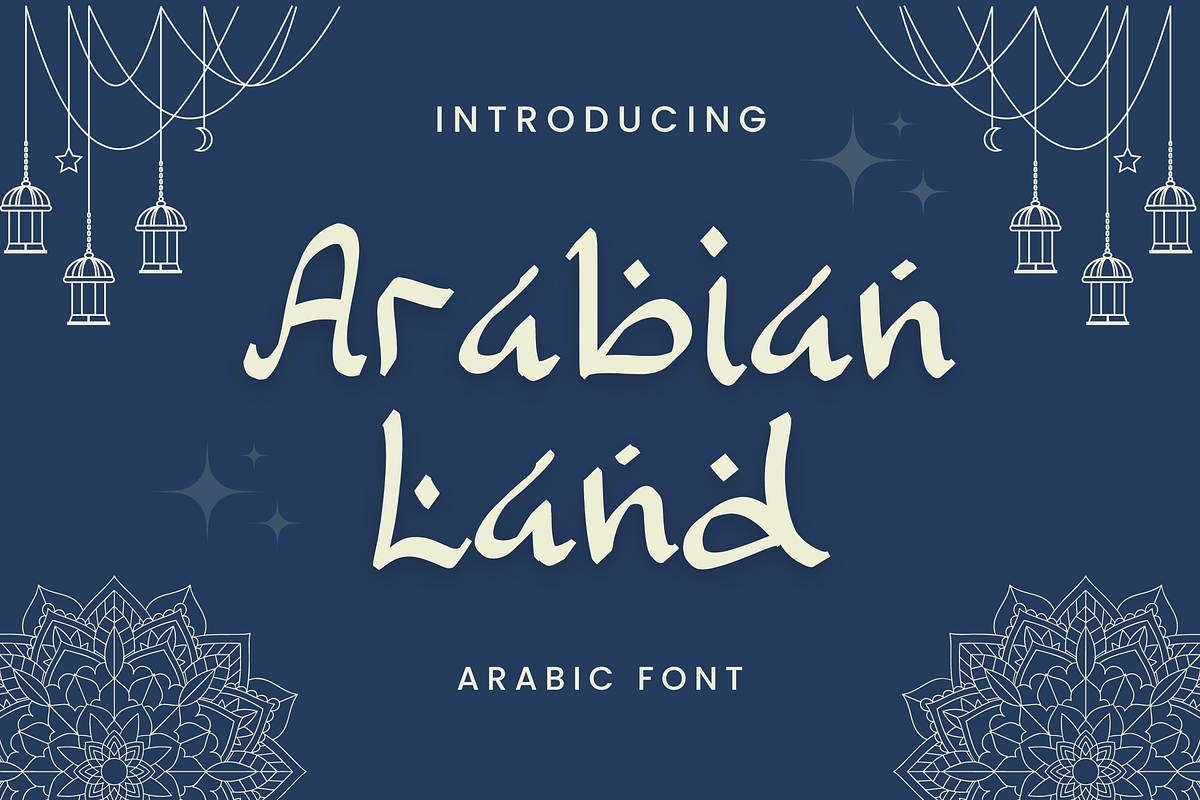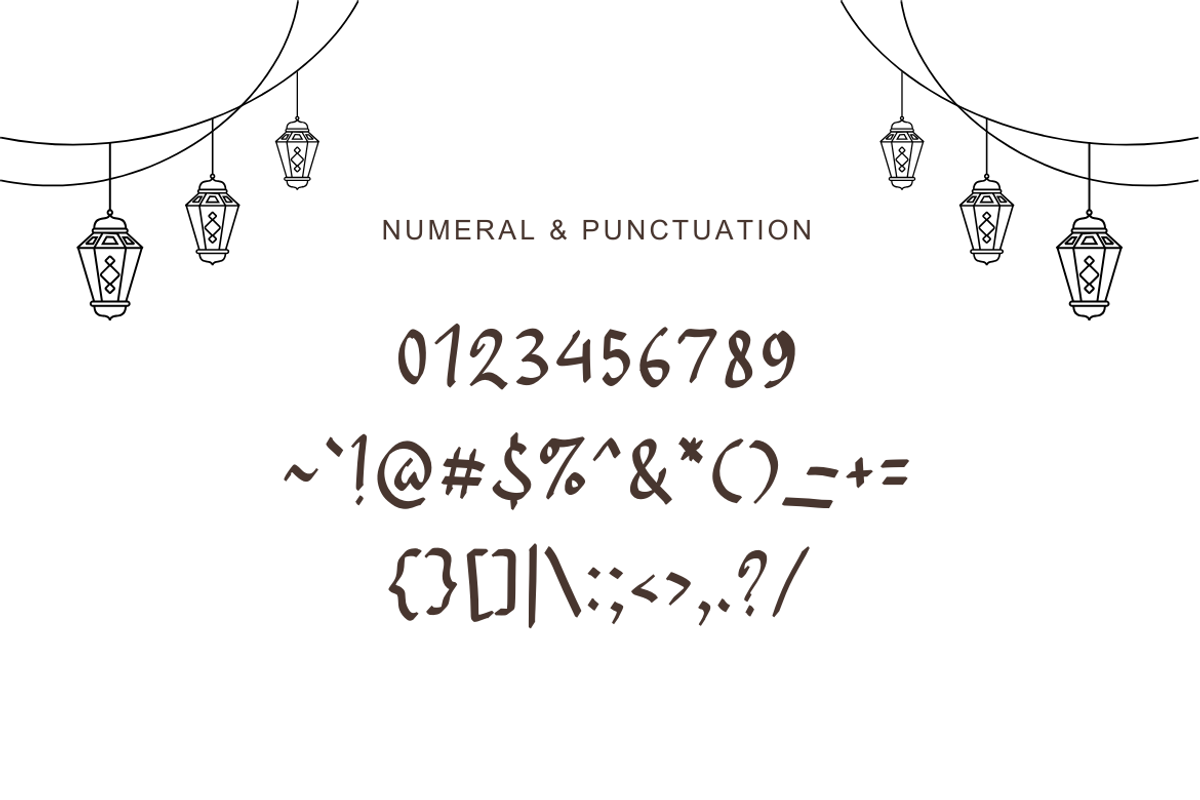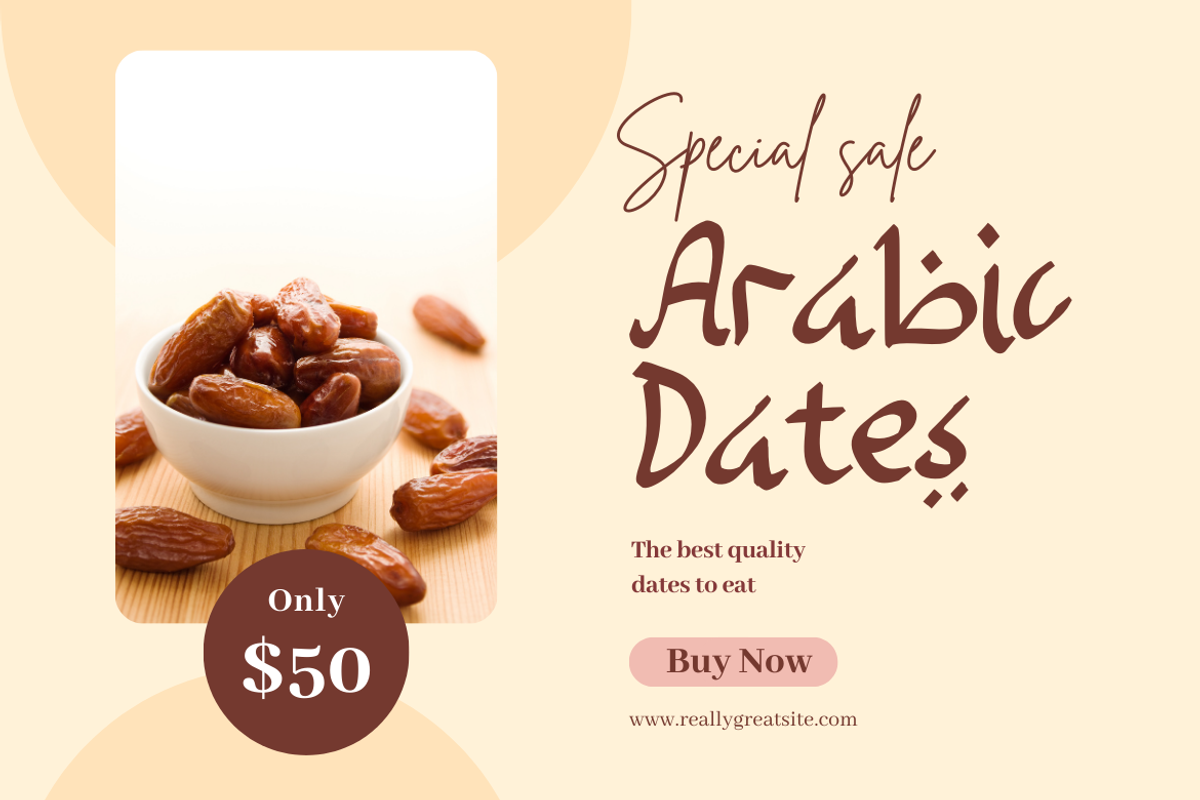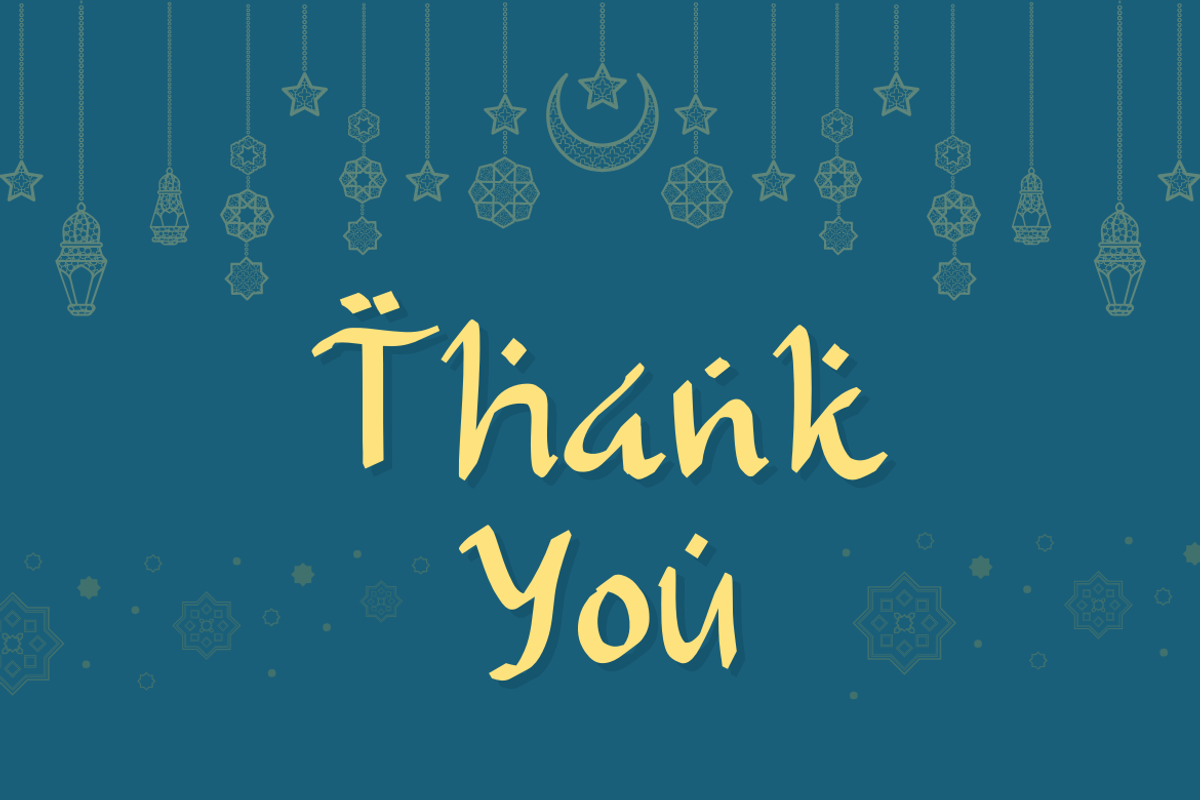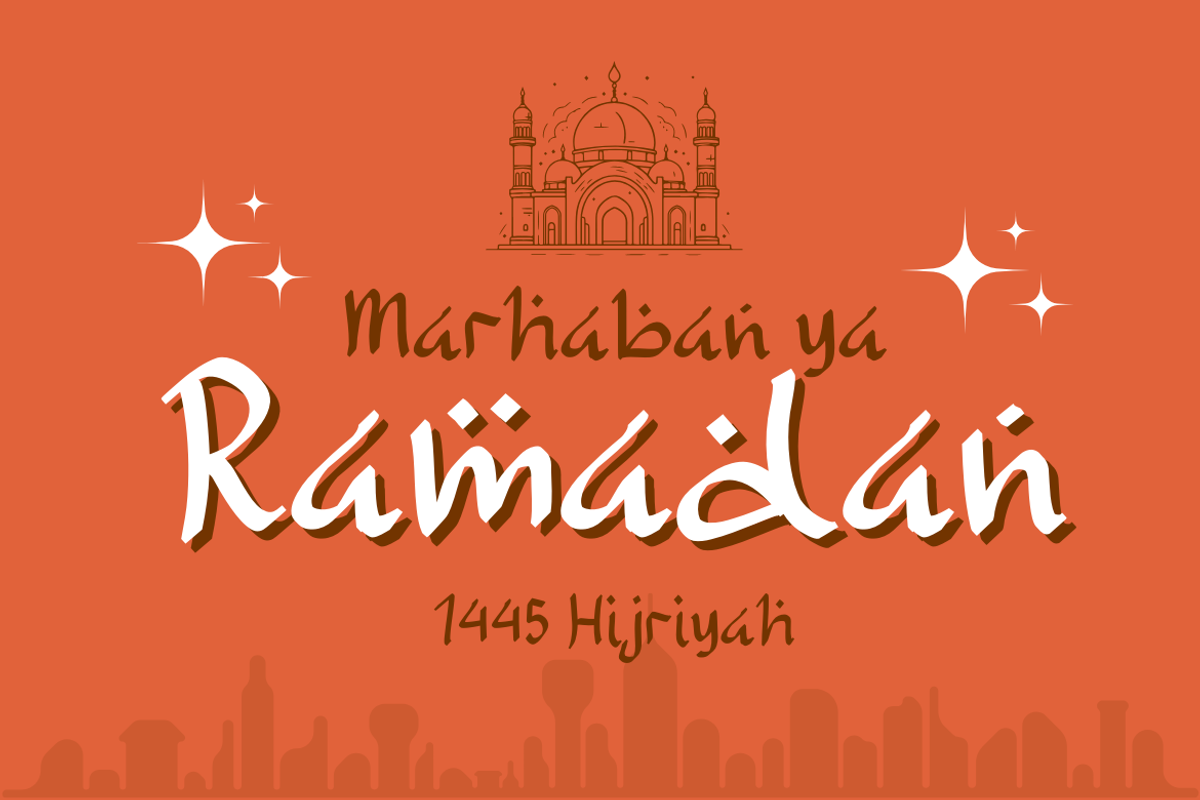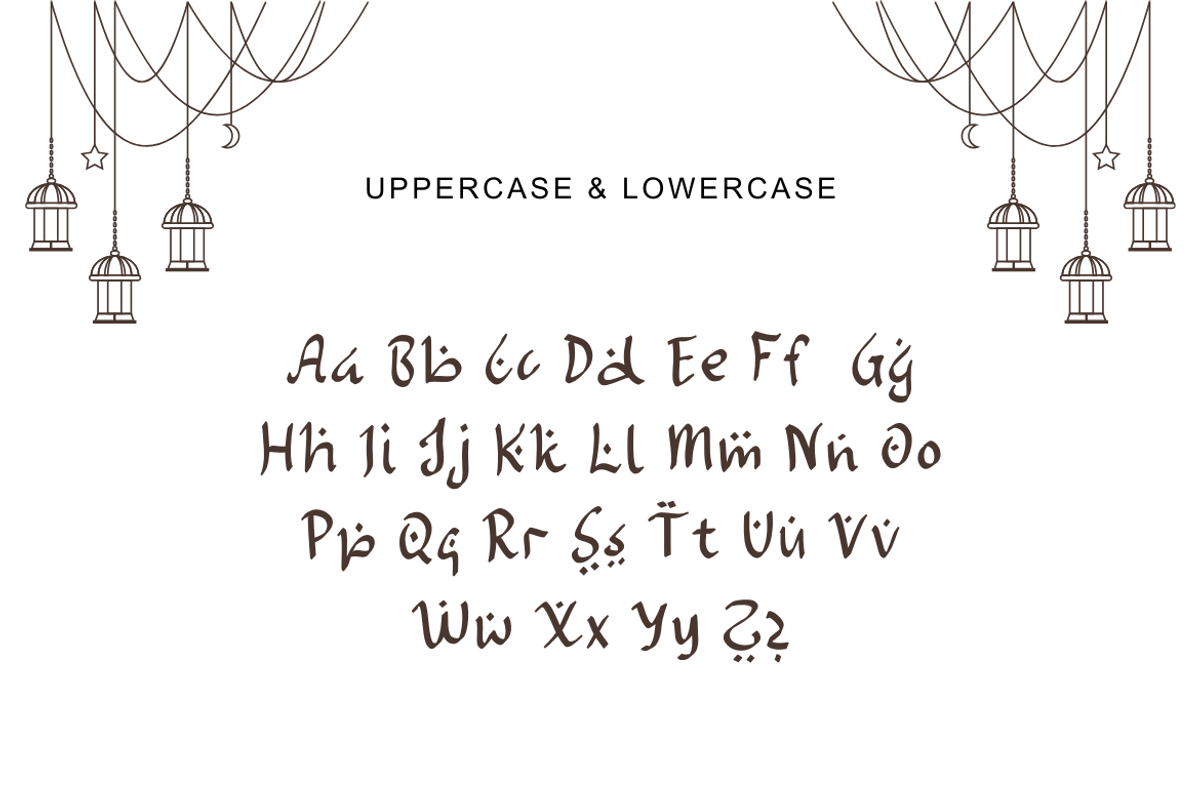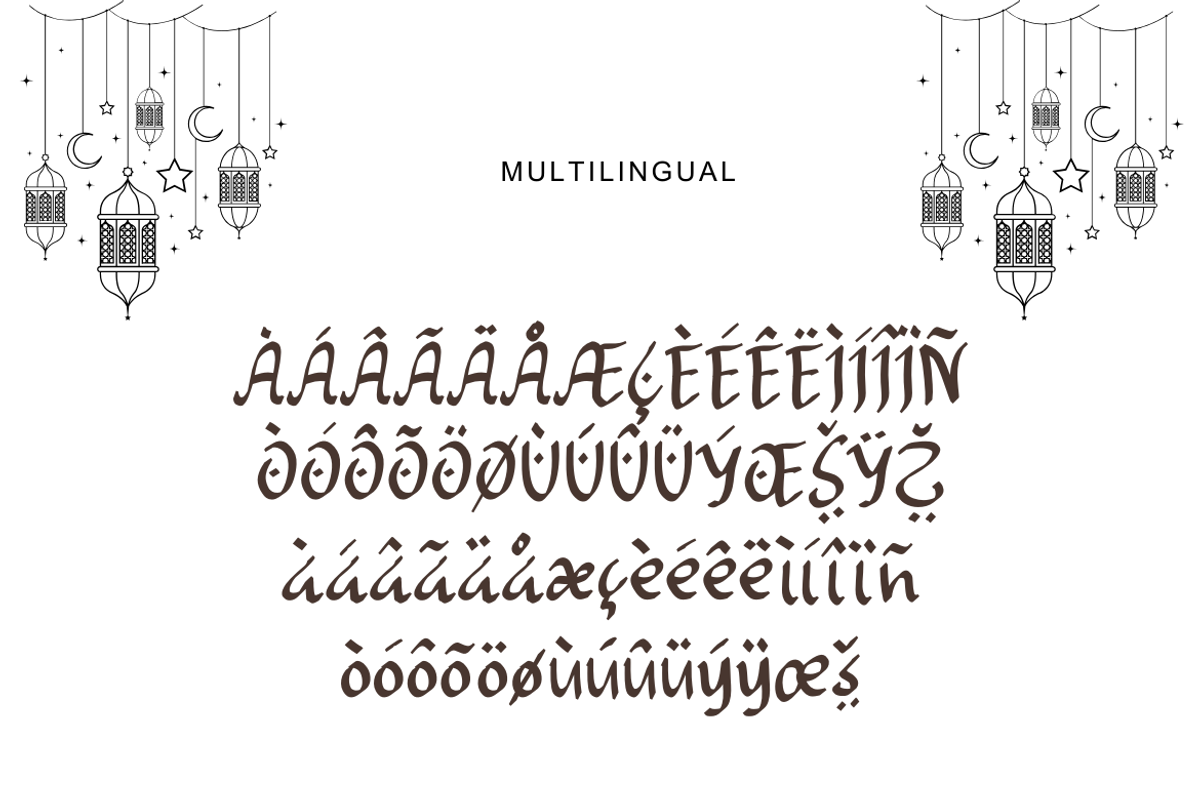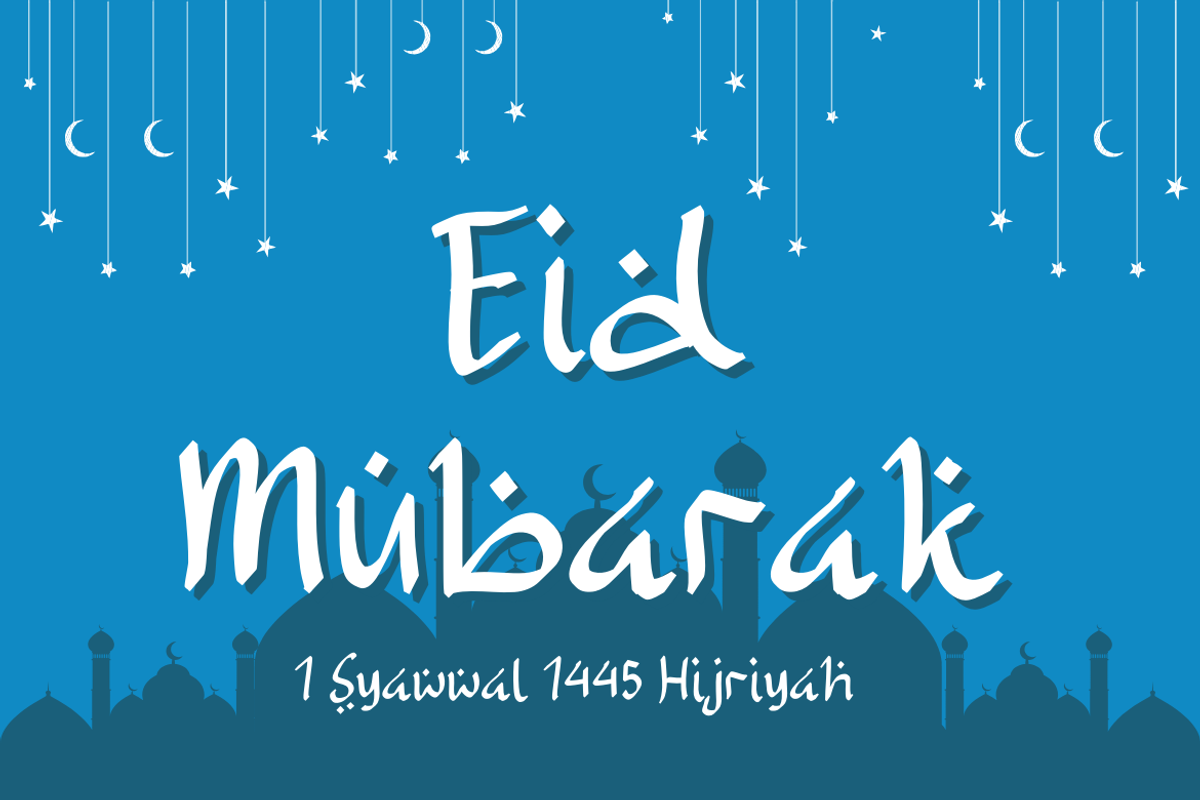
Arabian Land - An Arabic Font
Dive into the rich cultural heritage of the Arab world with Arabian Land, an exquisite Arabic font that embodies the elegance and tradition of Arabic calligraphy. Each stroke of this meticulously crafted font reflects the artistry and sophistication of Arabic script, making it perfect for adding a touch of authenticity and refinement to your design projects.
Whether you're creating invitations, branding materials, or signage, Arabian Land offers a captivating glimpse into the mesmerizing world of Arabic typography. Immerse yourself in the timeless beauty of Arabian script and let your designs transport viewers to the enchanting landscapes of the Middle East.